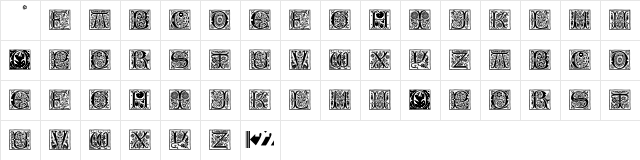
Romant Initials Alt Regular
Design Context for Romant Initials Alt Typeface
Romant Initials Alt is a composed and adaptable typeface that performs quietly and consistently across a wide range of design contexts.